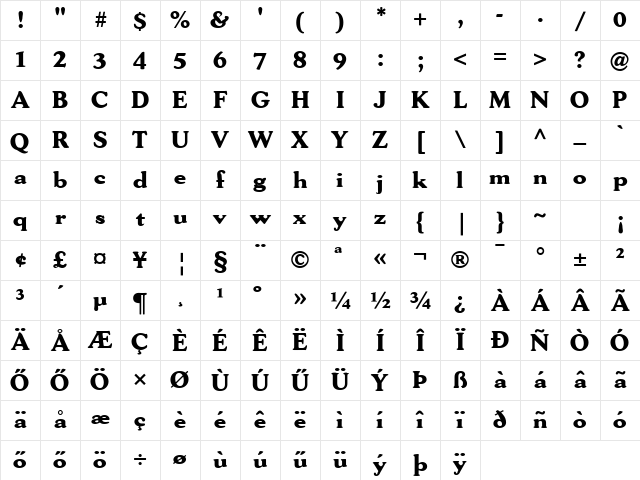
ROMAN30 HU Normal
Design Context for ROMAN30 HU
ROMAN30 HU is a composed and adaptable typeface that performs quietly and consistently across a wide range of design contexts.
Pro Tip: Use ROMAN30 HU in both headline and body roles to test its range before committing to a single application.